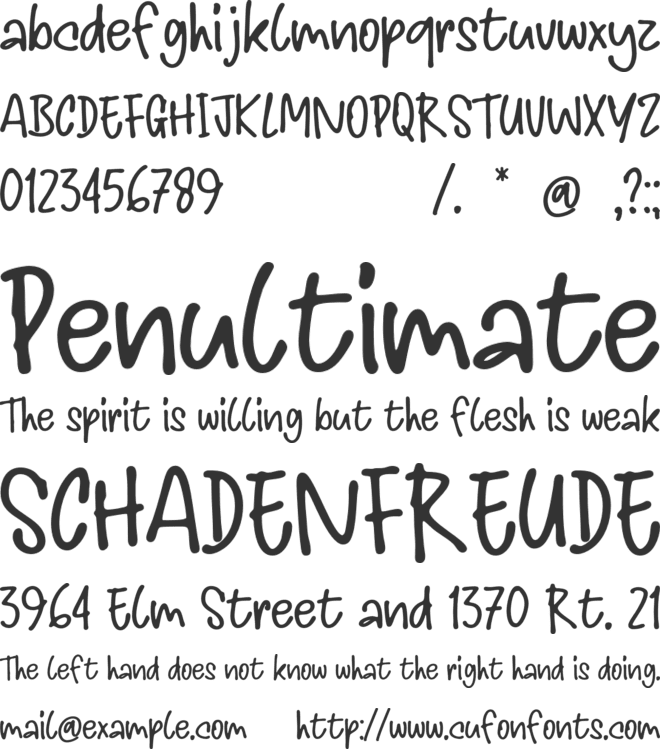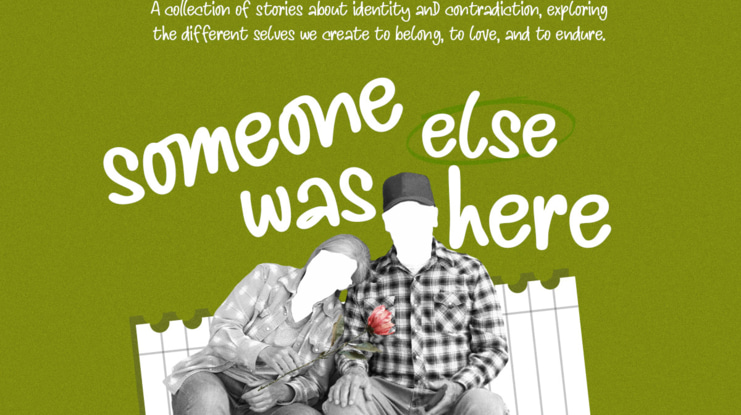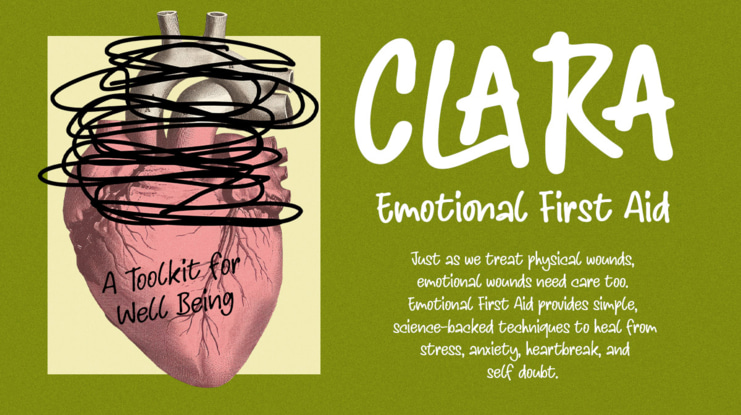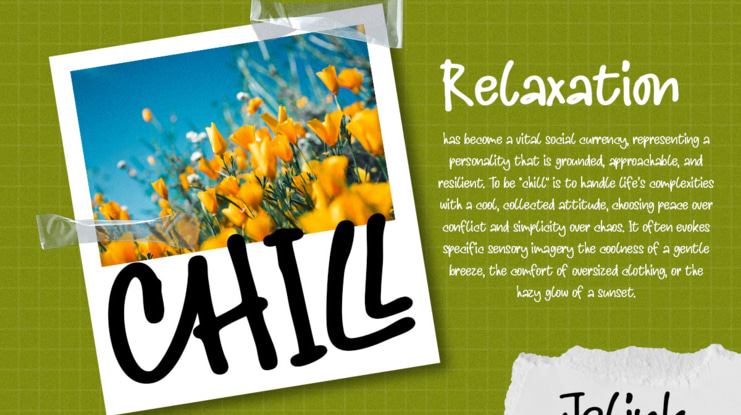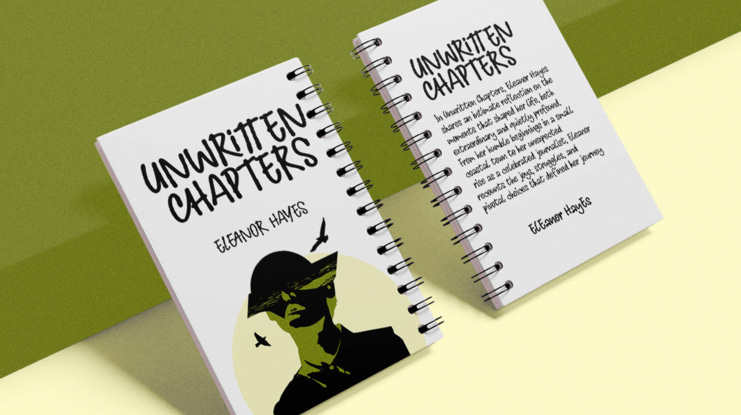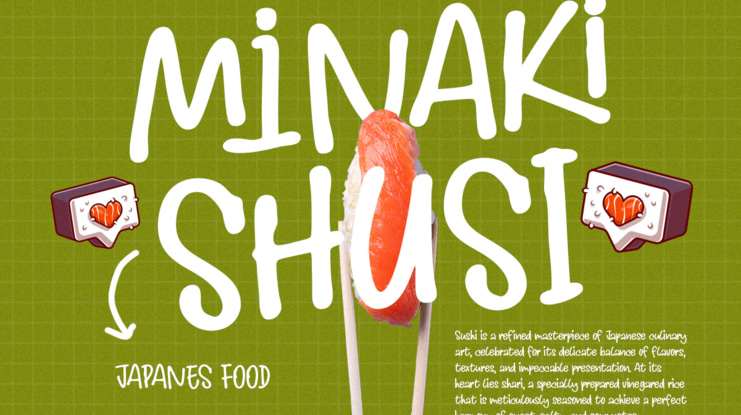
Jelink Handwritten Marker Note Font
Jelink is a natural handwritten marker note font that captures the authentic feel of real pen strokes on paper. Designed with a casual and expressive style, this font brings warmth, personality, and a human touch to your creative projects.